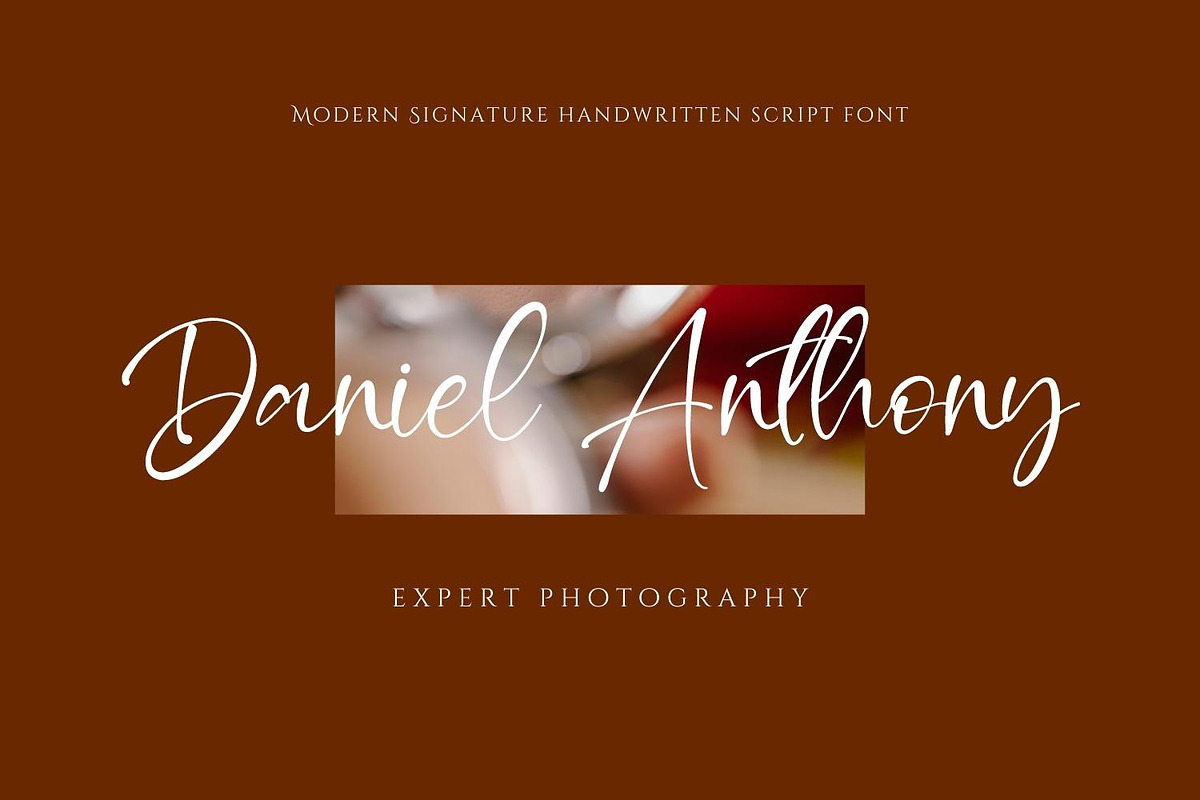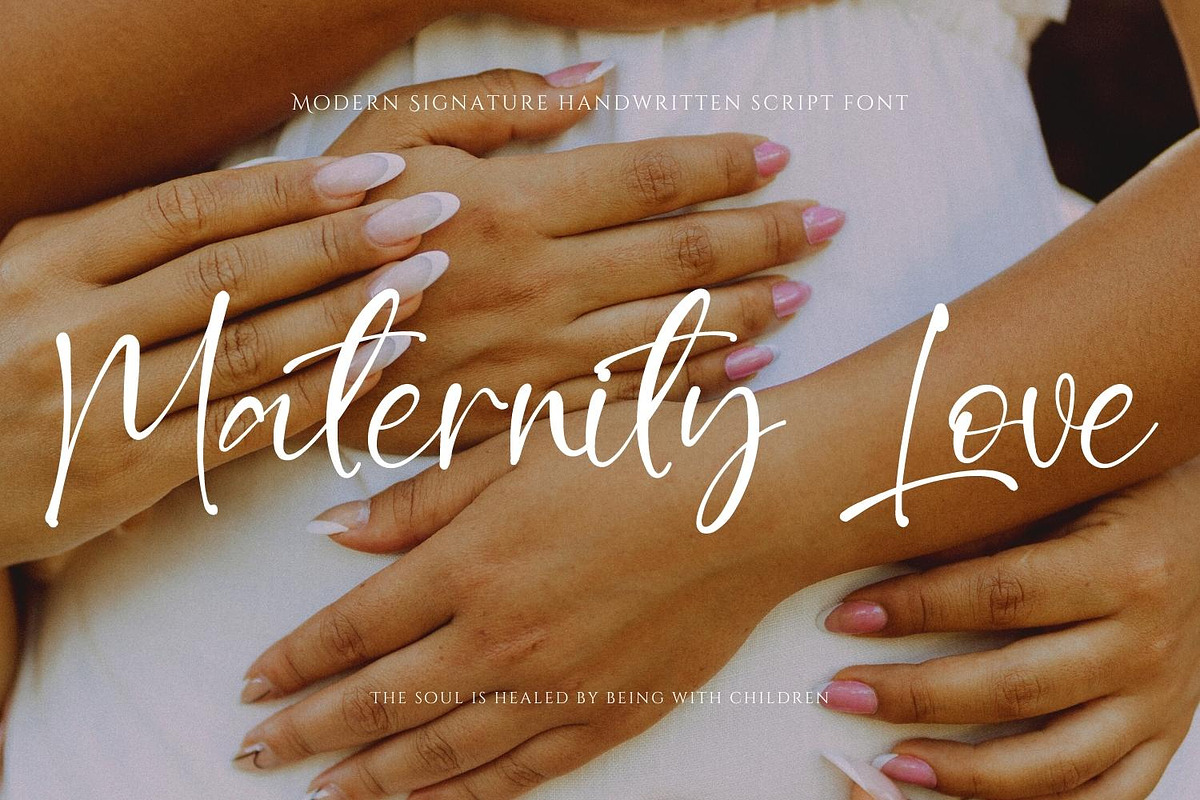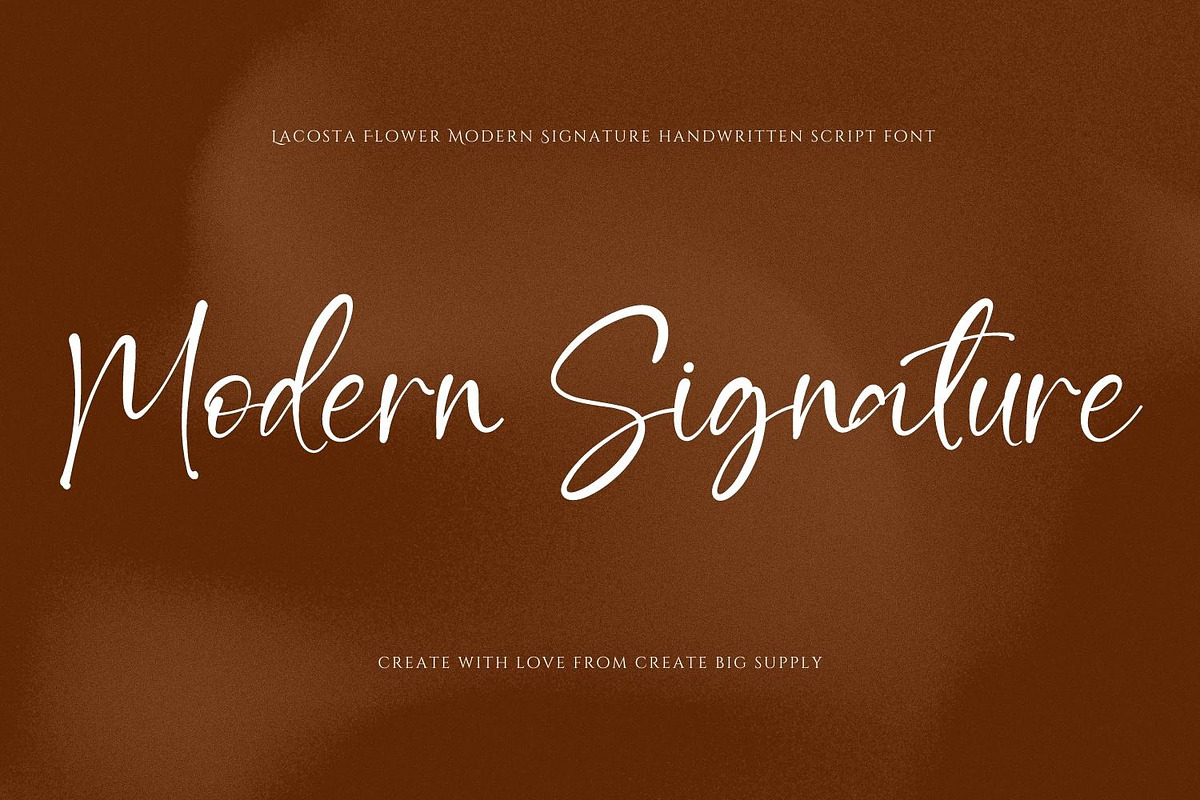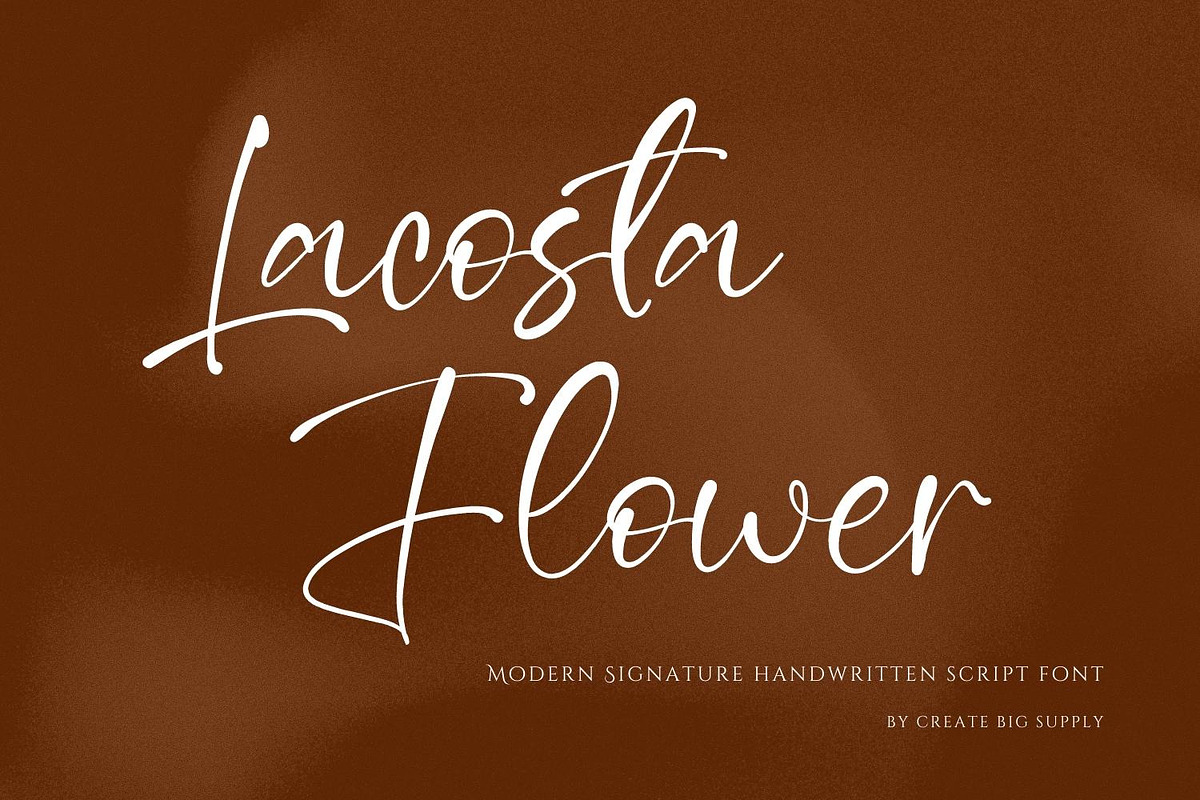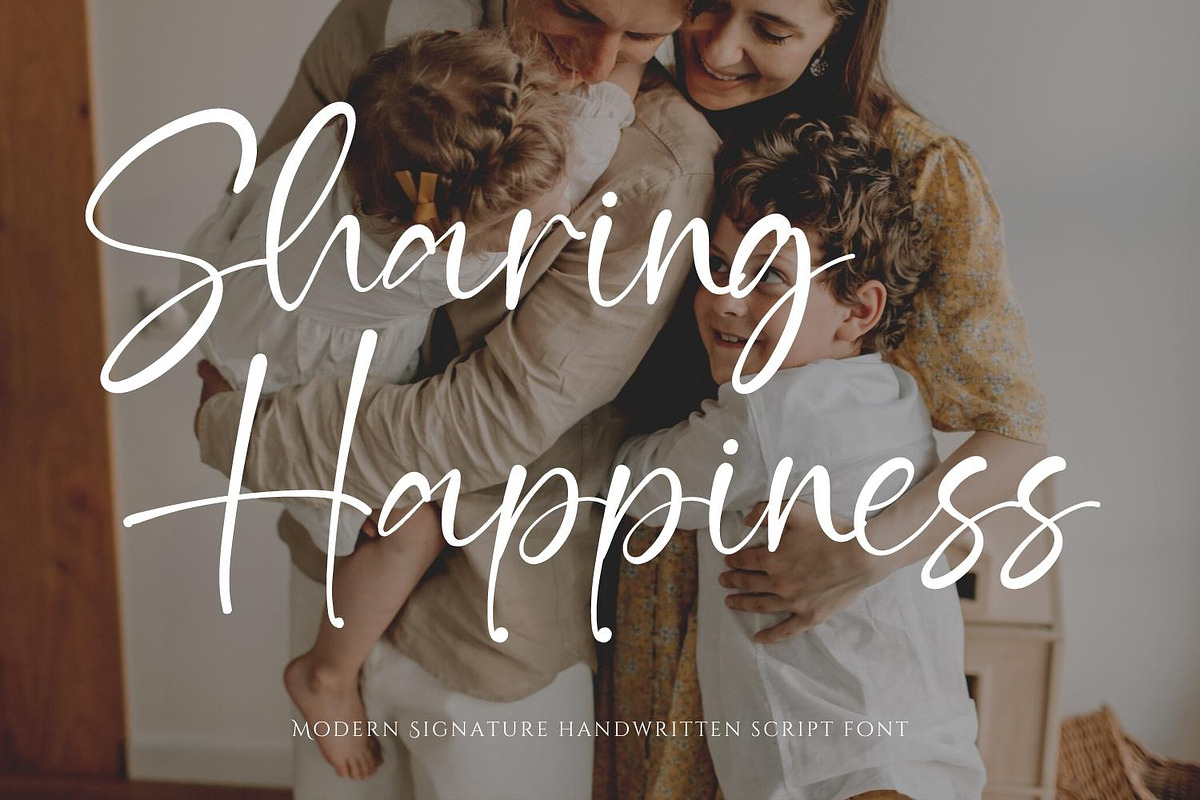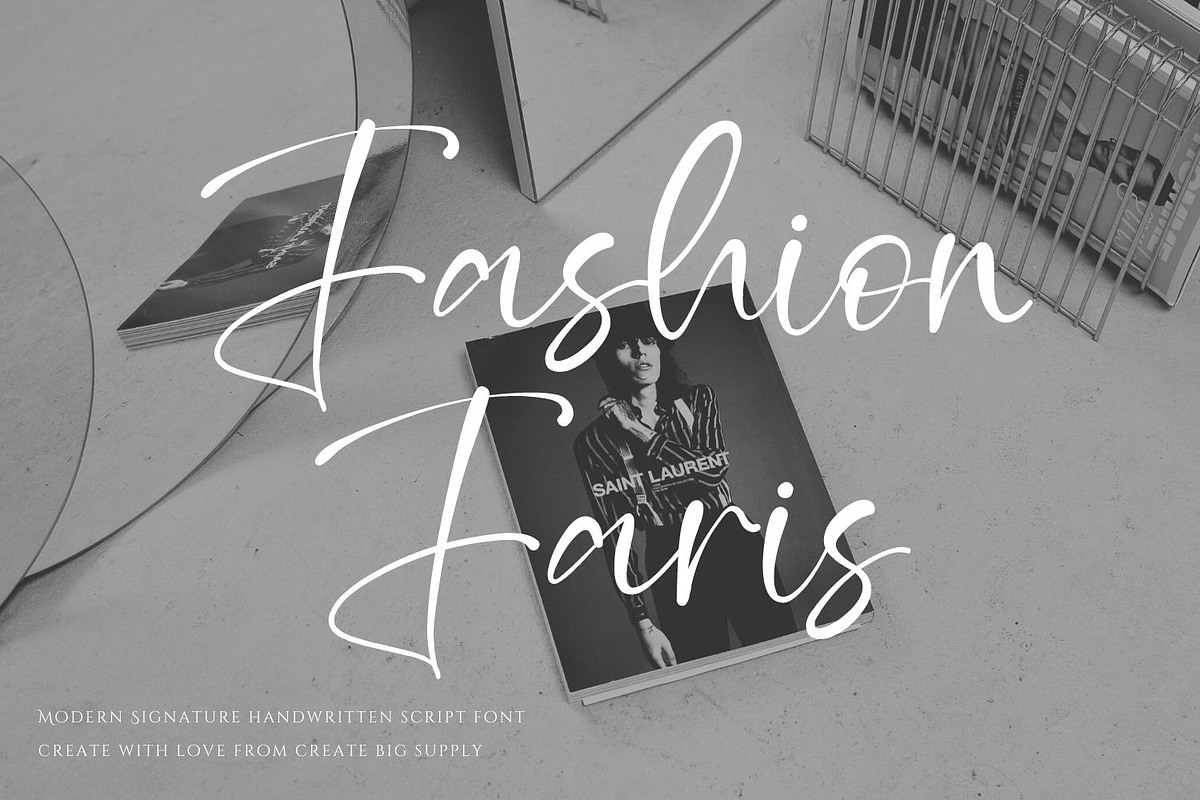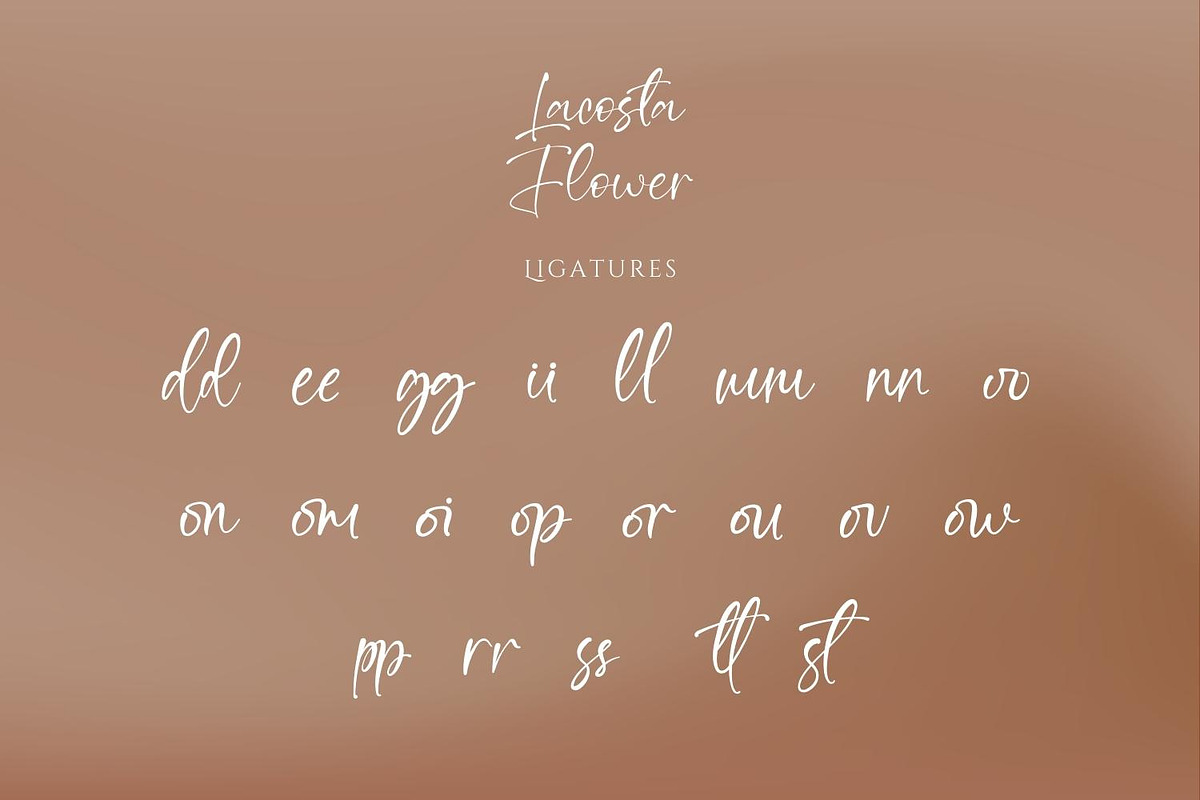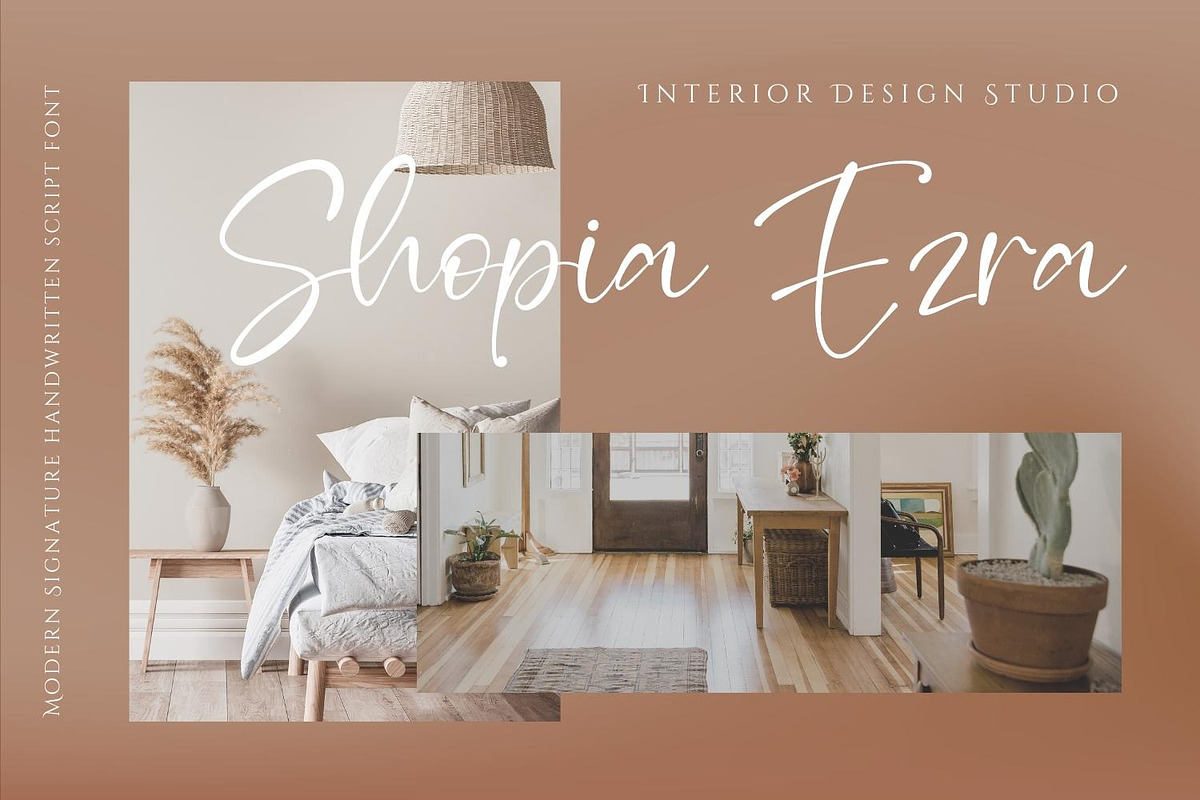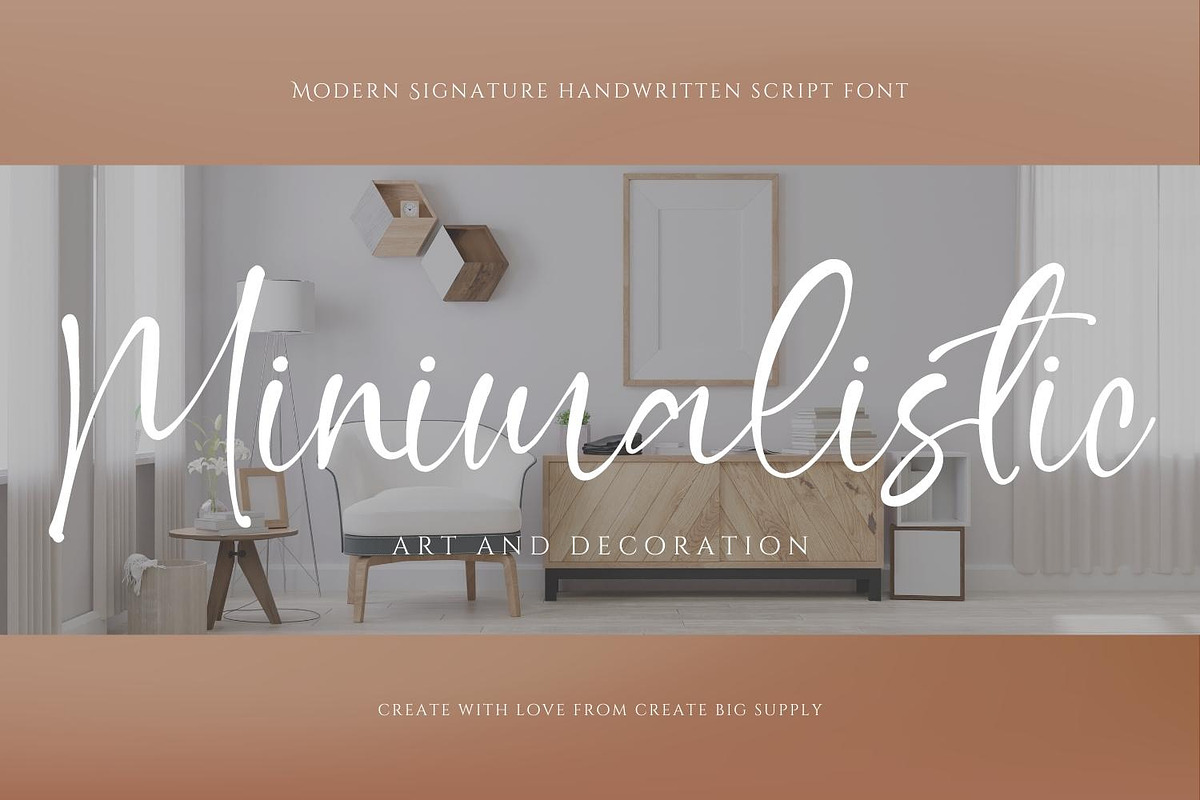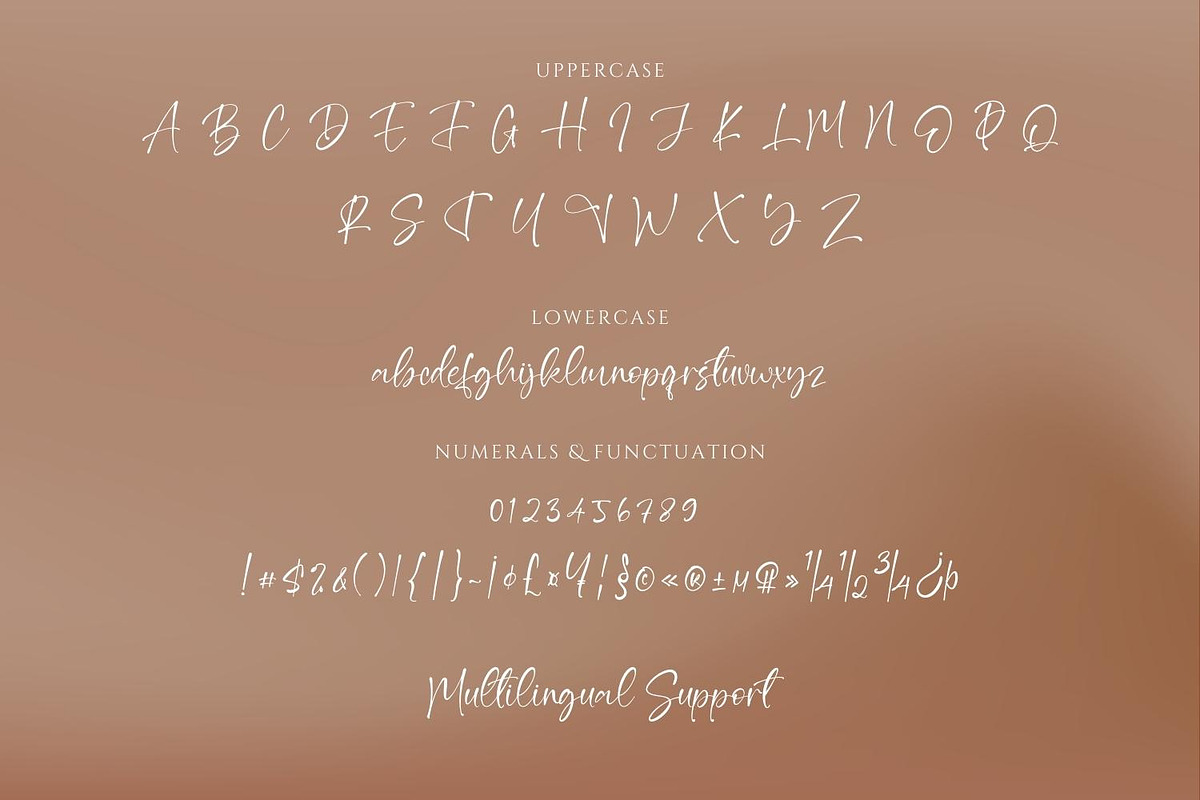
Lacoste Flower Signature Handwriting
Discover Lacoste Flower, a captivating signature handwriting script font that adds a touch of elegance and personalization to your projects. Whether you're creating a signature, designing a logo, or working on other creative endeavors, this script font is the perfect choice. Lacoste Flower Signature Handwriting Script Font offers a wide range of features to enhance your designs. It includes both uppercase and lowercase letters, numbers, and punctuations, providing versatility and creative freedom. With multilingual support, you can cater to a global audience and express your ideas in different languages. Enjoy the beauty of ligatures and the convenience of PUA encoding, which allows easy access to special characters. Download Lacoste Flower Signature Handwriting Script Font now and bring your projects to life with a signature handwriting style.